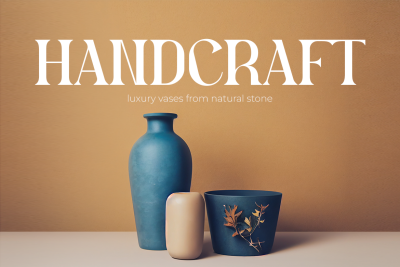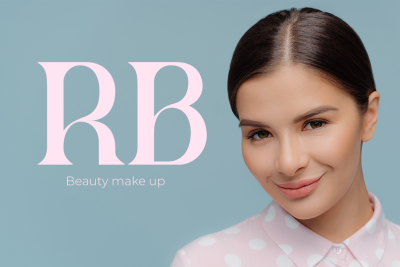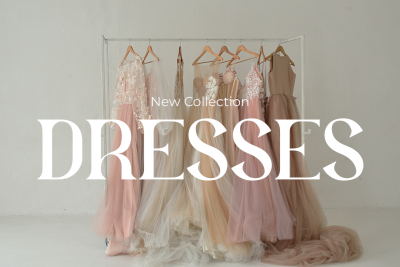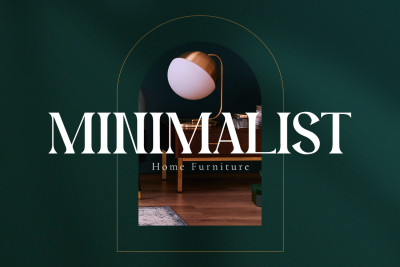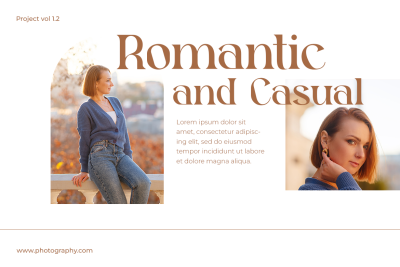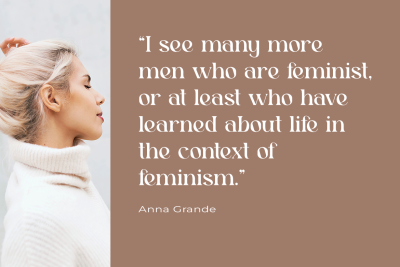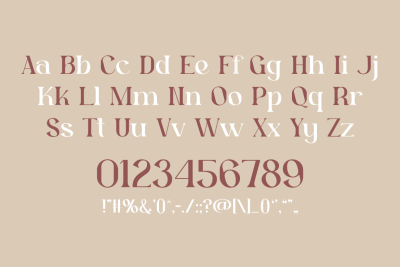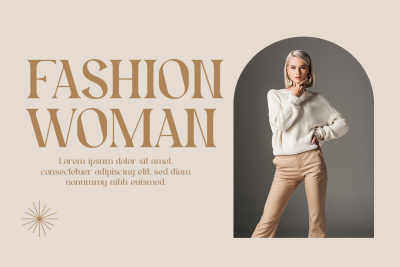
Instagram Font Elegance is a modern serif display typeface designed to captivate attention effortlessly. With its refined curves and balanced geometric structure, it exudes timeless sophistication. Moreover, the font features high contrast between thick and thin strokes, which enhances its elegance further. It is ideal for headlines, logos, branding, and editorial projects. Whether you are working on social media posts or crafting a brand identity, Instagram Font Elegance consistently delivers a professional yet stylish aesthetic.
Additionally, the fontโs clean lines and luxurious feel ensure excellent legibility, even at smaller sizes. It seamlessly blends traditional serif qualities with a contemporary edge, which keeps it fresh and relevant in todayโs design trends. Furthermore, Instagram Font Elegance works flawlessly on both digital platforms and print media. Designers can rely on it to create visually striking and versatile compositions. Its timeless charm makes it a reliable choice for projects requiring a touch of elegance and sophistication.
The typeface also stands out for its ability to balance luxury with accessibility. This combination ensures that it resonates with diverse audiences while maintaining a polished look. Whether used for minimalist designs or elaborate layouts, Elegance adapts effortlessly to different styles.
Instagram Font Elegance Who is it suitable for?
Instagram Font Elegance is especially suitable for creative professionals and businesses aiming for a premium identity. It works perfectly for Instagram users seeking a high-end aesthetic. For instance, fashion bloggers, lifestyle brands, wedding planners, and luxury product advertisers will find it ideal. Similarly, graphic designers can use it for logos, packaging, invitations, or magazine layouts.
Moreover, marketers and content creators can craft stunning social media posts, ads, and banners with this font. Entrepreneurs in beauty, hospitality, or luxury goods industries can also elevate their branding with it. Whether you are designing for the web or print, adds sophistication and style to any project. Therefore, it is a versatile and reliable choice for various creative needs.
With its exceptional adaptability, this typeface ensures that your designs always make a lasting impression.